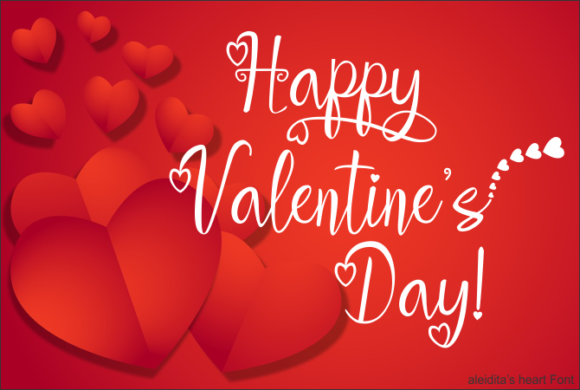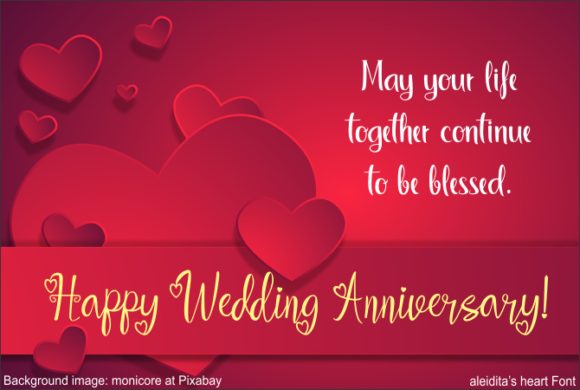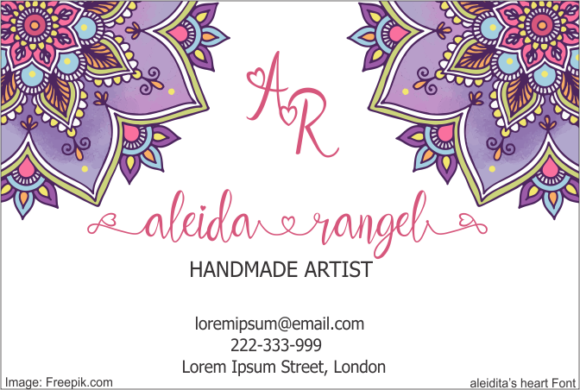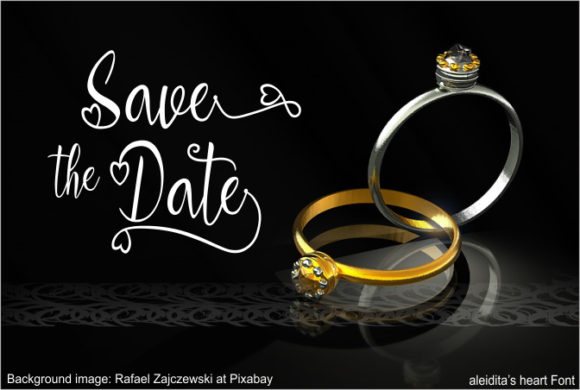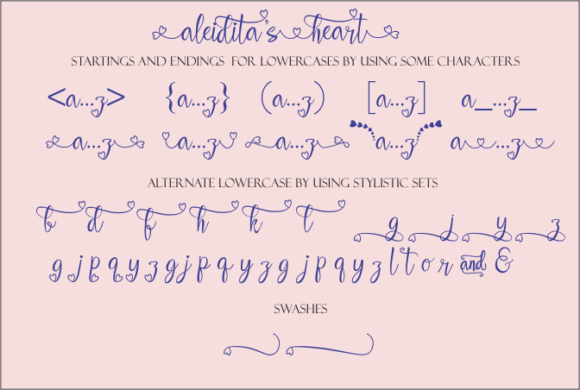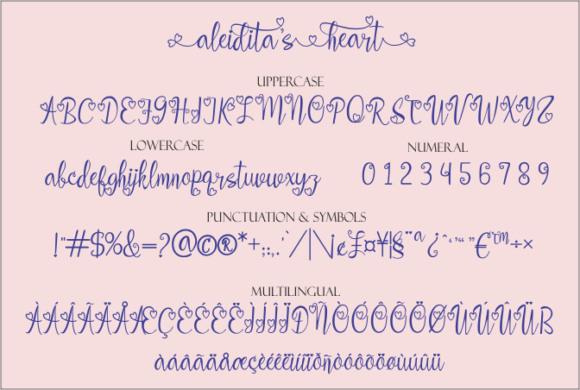
Aleidita’s Heart Font: The Perfect Choice for Your Creative Projects
Are you looking for a font that can add a touch of warmth and romance to your designs? Look no further than Aleidita’s Heart Font. This beautiful, handwritten font is perfect for crafters, designers, and anyone looking to add a personal touch to their projects. In this article, we’ll take a closer look at Aleidita’s Heart Font and explore its features, benefits, and uses.
What is Aleidita’s Heart Font?
Aleidita’s Heart Font is a sweet, thin, and delicate handwritten font that is sure to capture your heart. Its warm, romantic, and jolly style makes it perfect for a wide range of creative projects, from wedding invitations and greeting cards to branding and packaging designs. This font is designed to add a personal touch to your work, making it stand out from the crowd.
Key Features of Aleidita’s Heart Font
- PUA Encoded: Aleidita’s Heart Font is PUA (Private Use Area) encoded, which means you can access all of the glyphs and swashes with ease. This makes it simple to use and customize the font to suit your needs.
- Handwritten Style: The font features a beautiful, handwritten style that is both elegant and playful. Its thin and delicate lines make it perfect for creating romantic and whimsical designs.
- Multilingual Support: Aleidita’s Heart Font supports multiple languages, making it a great choice for designers and crafters who work with clients from around the world.
Benefits of Using Aleidita’s Heart Font
So why choose Aleidita’s Heart Font for your creative projects? Here are just a few benefits of using this beautiful font:
- Adds a Personal Touch: Aleidita’s Heart Font adds a personal touch to your designs, making them more relatable and engaging.
- Versatile: The font is versatile and can be used for a wide range of projects, from digital designs to print materials.
- Easy to Use: With its PUA encoding, Aleidita’s Heart Font is easy to use and customize, even for designers who are new to font editing.
- Unique: The font’s unique style sets it apart from other fonts, making your designs stand out from the crowd.
Uses of Aleidita’s Heart Font
Aleidita’s Heart Font is perfect for a wide range of creative projects, including:
- Wedding Invitations: The font’s romantic and whimsical style makes it perfect for wedding invitations, save-the-date cards, and other wedding-related designs.
- Greeting Cards: Aleidita’s Heart Font is great for creating greeting cards for special occasions, such as birthdays, anniversaries, and holidays.
- Branding and Packaging: The font’s unique style makes it perfect for branding and packaging designs, adding a personal touch to your products.
- Digital Designs: Aleidita’s Heart Font can be used for digital designs, such as social media graphics, blog posts, and email newsletters.
Tips for Using Aleidita’s Heart Font
Here are a few tips for using Aleidita’s Heart Font in your creative projects:
- Pair it with Other Fonts: Aleidita’s Heart Font pairs well with other fonts, such as sans-serif fonts and script fonts. Experiment with different font combinations to find the perfect look for your project.
- Use it for Headings and Titles: The font’s elegant style makes it perfect for headings and titles. Use it to add a touch of sophistication to your designs.
- Experiment with Colors: Aleidita’s Heart Font looks great in a variety of colors. Experiment with different colors and textures to find the perfect look for your project.
| Author | Jaime Rangel Castro |
Aleidita’s Heart Font is a beautiful, handwritten font that is perfect for crafters, designers, and anyone looking to add a personal touch to their creative projects. With its PUA encoding, handwritten style, and multilingual support, this font is versatile and easy to use. Whether you’re creating wedding invitations, greeting cards, or branding and packaging designs, Aleidita’s Heart Font is sure to capture your heart and add a touch of warmth and romance to your work.